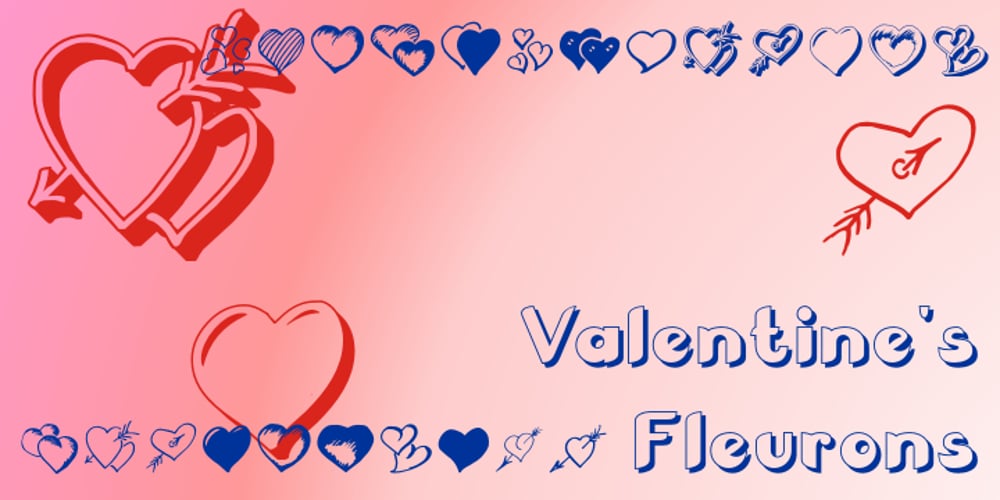
Valentine’s Fleurons Font Family was designed by published by Greater Albion Typefounders. Valentine’s Fleurons contains 1 styles and family package options. Valentine’s Fleurons is a bit of romantic (the emotion, not the era) fun!. Need a few dingbats for that special card you’re making for that special person-or for others to give to their special person(s)? You’ll find them here in a charming hand-drawn style.